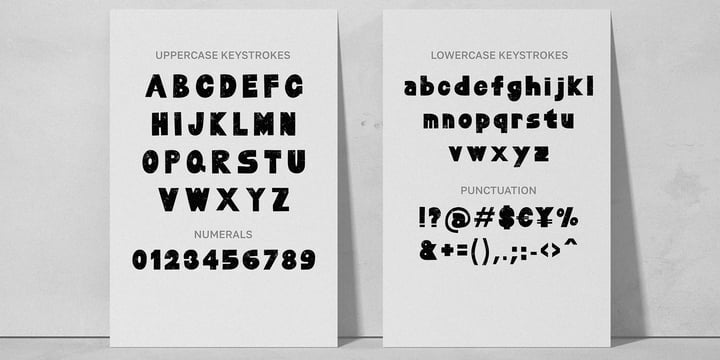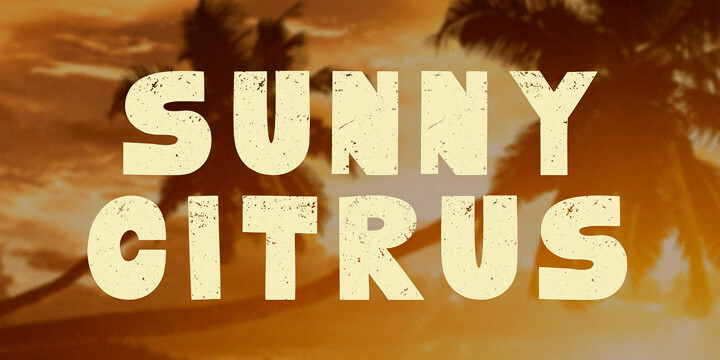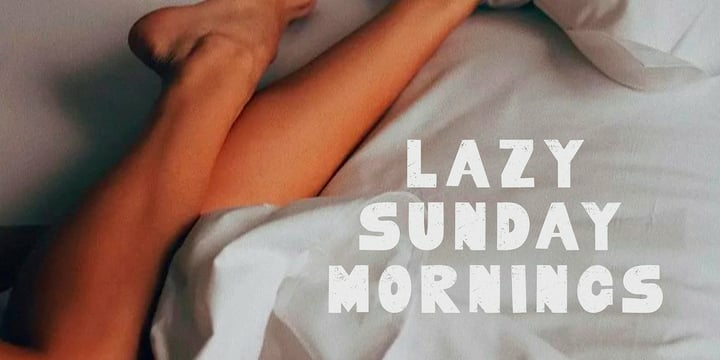
Sunny Citrus Font
Sunny Citrus FontAdd a stylish touch to your design with the new duo Sunny Citrus font. Consisting of textured sans-serif capital letters and bold offers you many possibilities in your professional design projects.
Perfect for creating beautiful typographic designs – perfect for branding, posters, book covers, social media, merchandise and more.
This font is filled with a whole bunch of amazing additions – bold strokes and rough pieces.